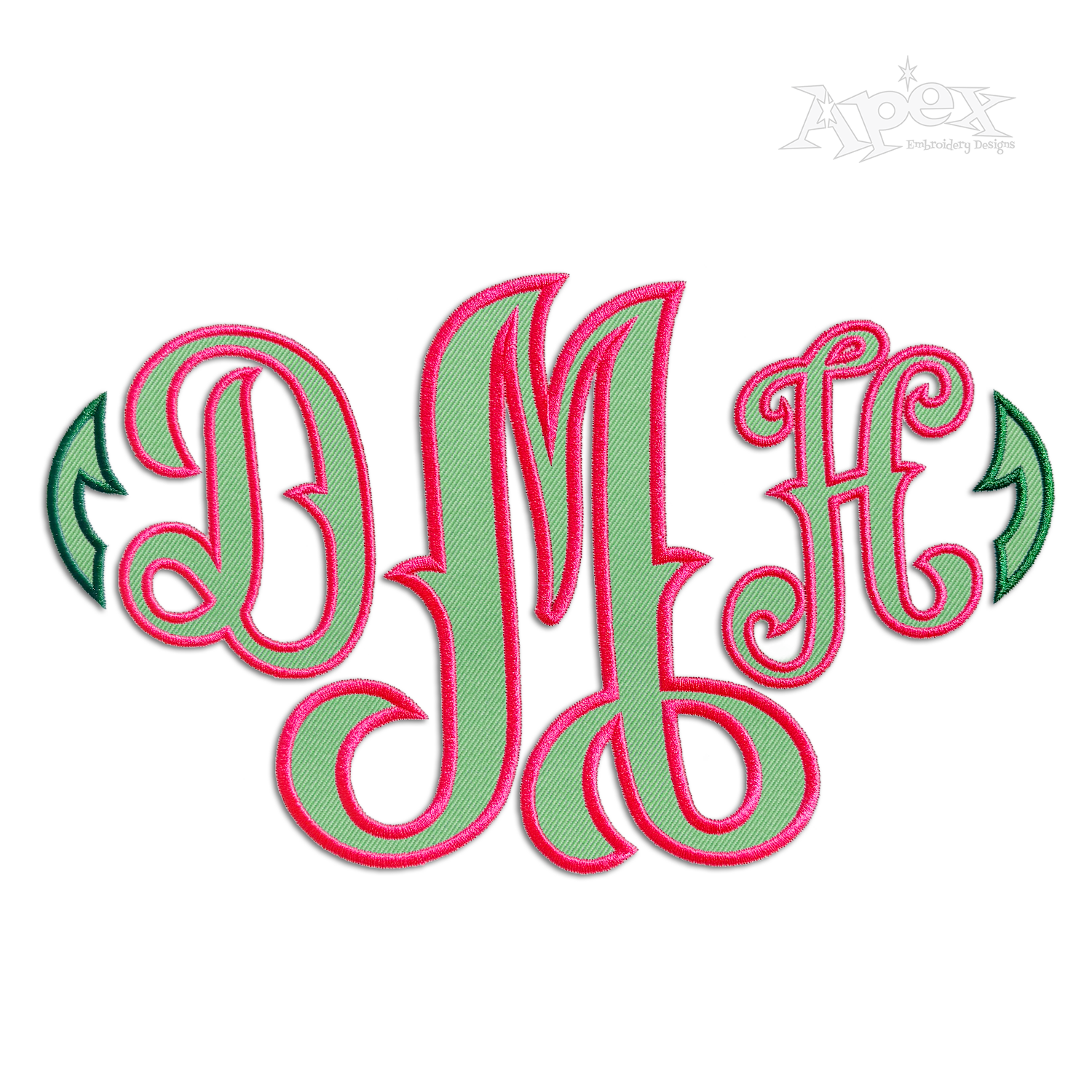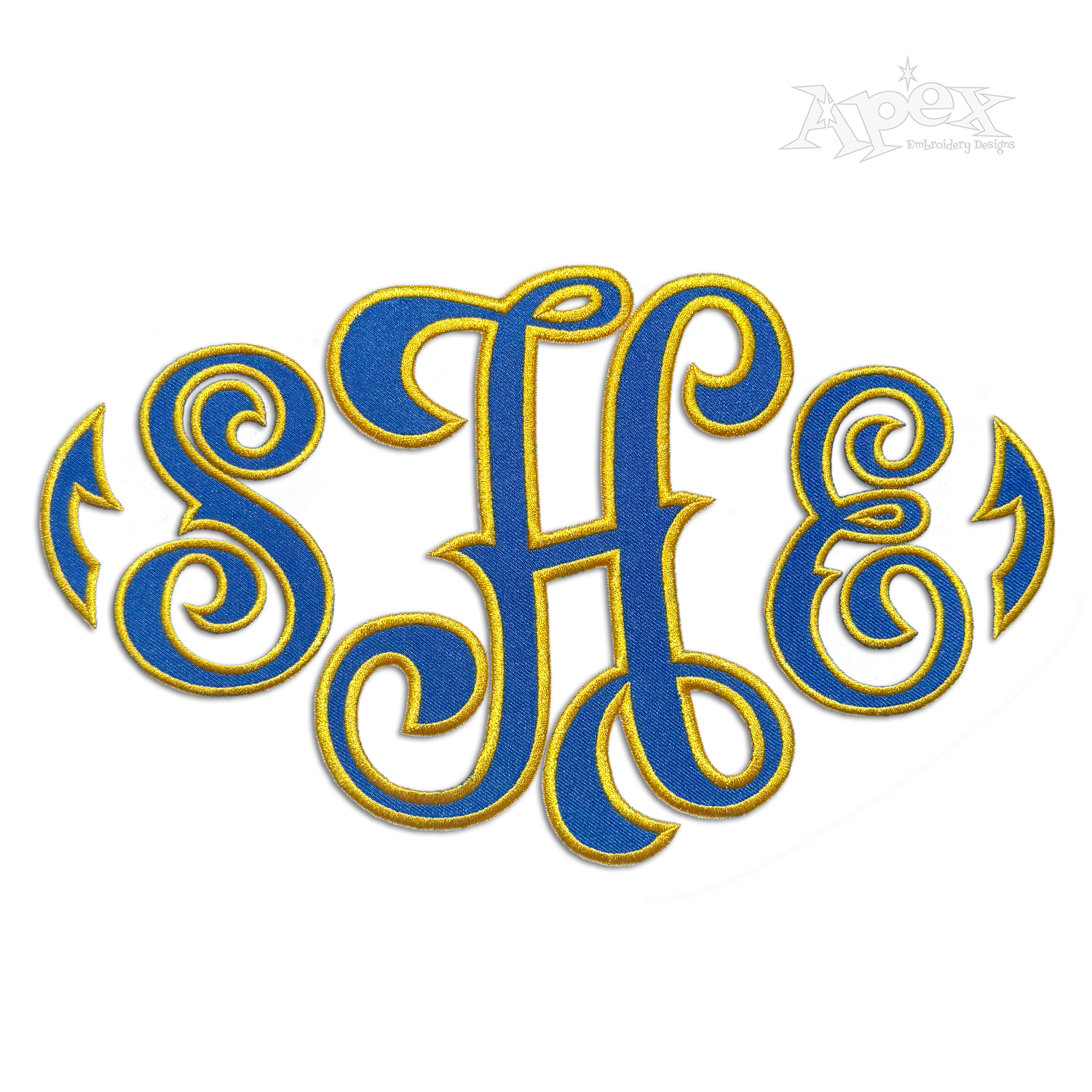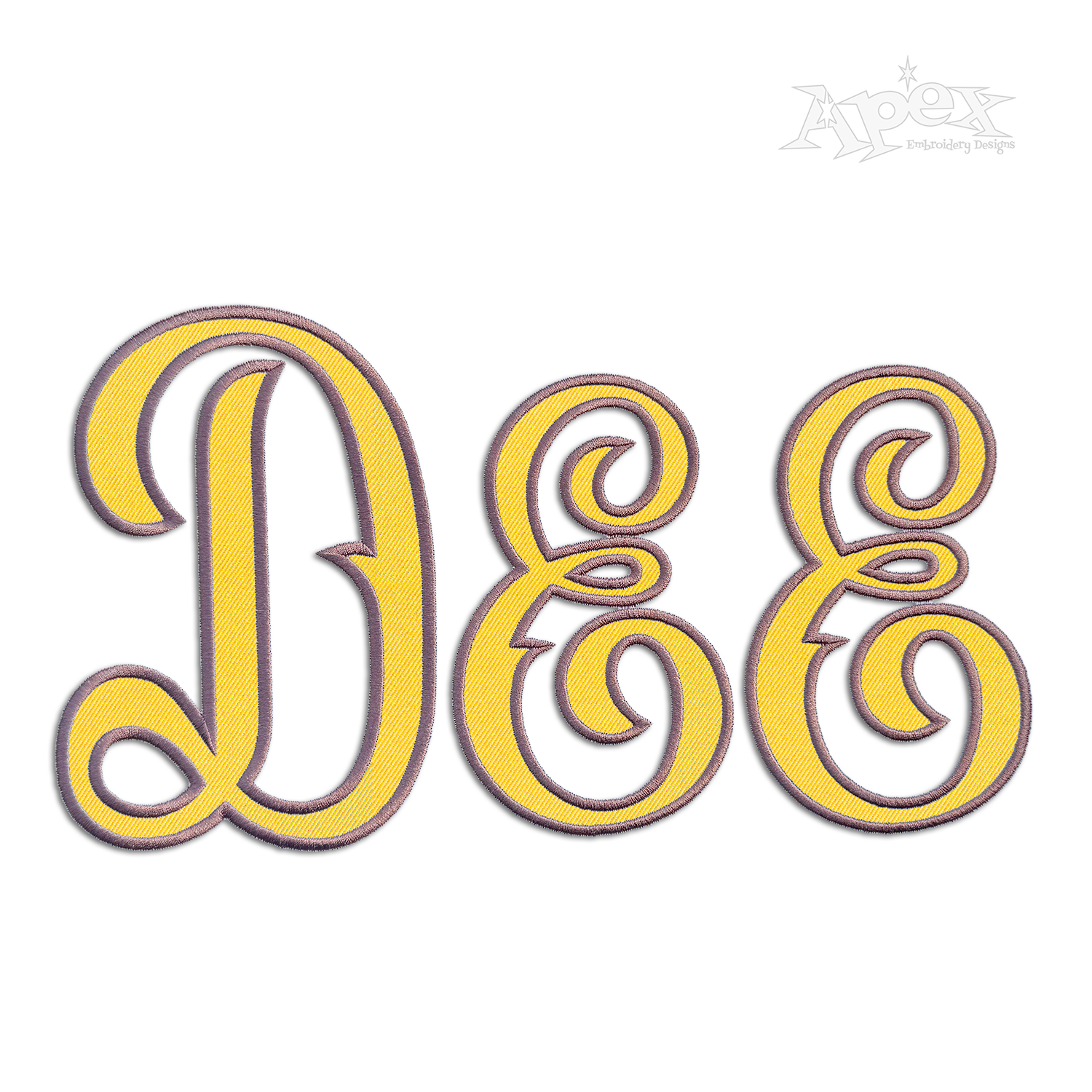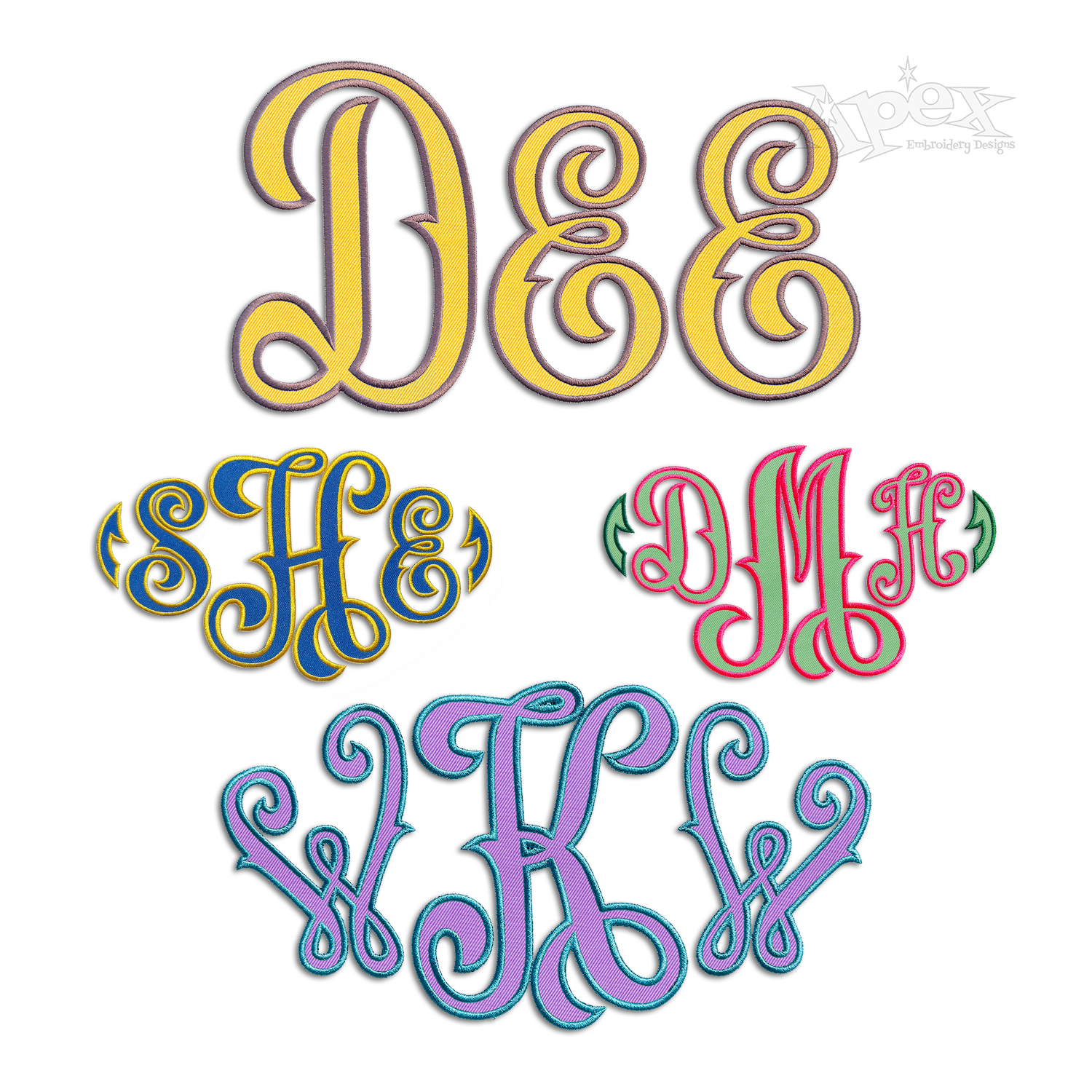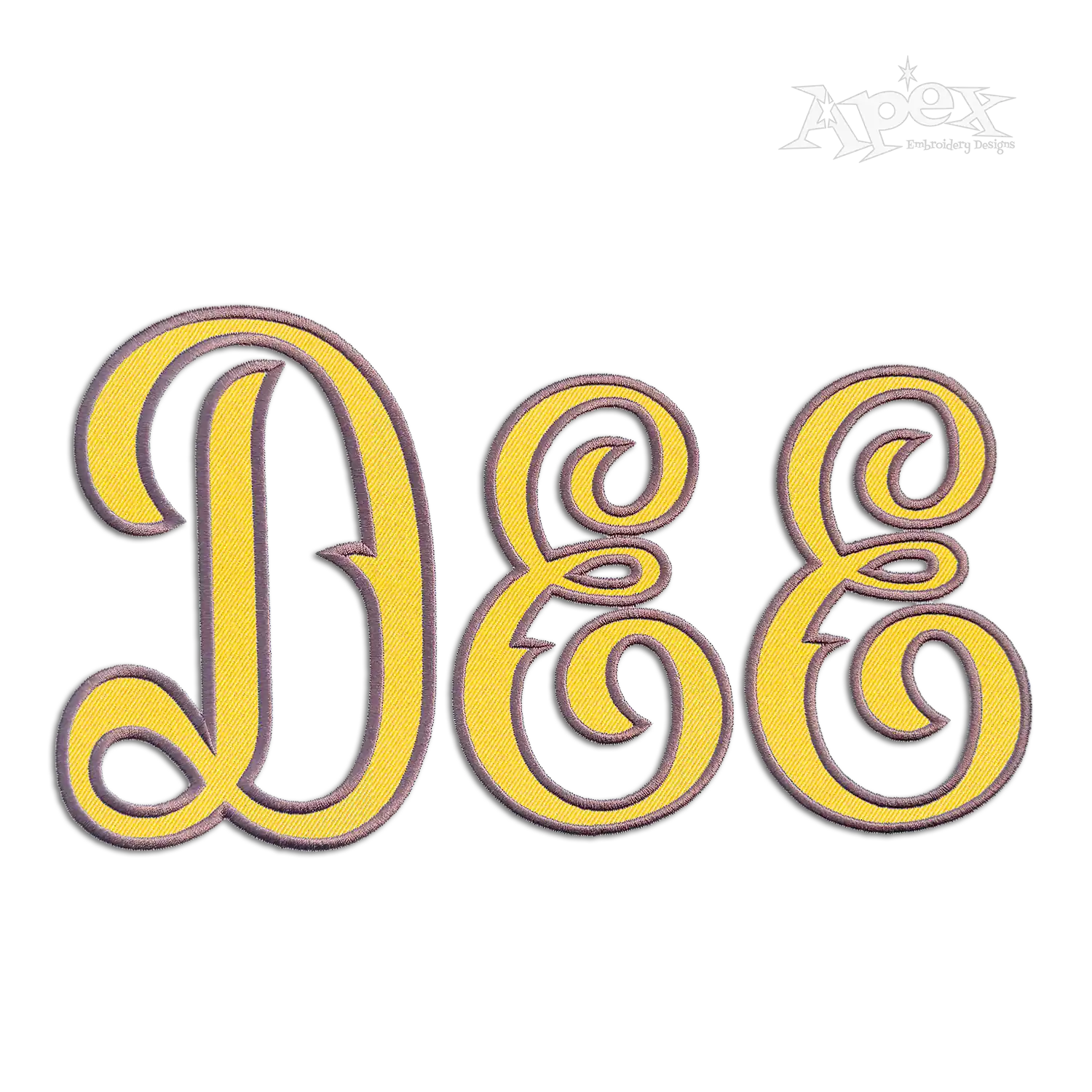
Mia Monogram Bold Applique Embroidery Font
Create style personalized gifts and home décor with Mia Monogram Bold Applique. European old world monogram embroidery font. Featuring a classic candle wick ends with Europe Regal stylish 2-color embroidery monogram set is perfect for customizing hats, linens, towels, baby gifts, tote bags, and more.
This premium Mia Monogram embroidery font collection includes complete size sets with uppercase monogram letters designed for creating stunning 3-letter monograms. Each font comes professionally digitized for smooth stitching and excellent embroidery results. Apex has digitized machine embroidery fonts for over 25 years.